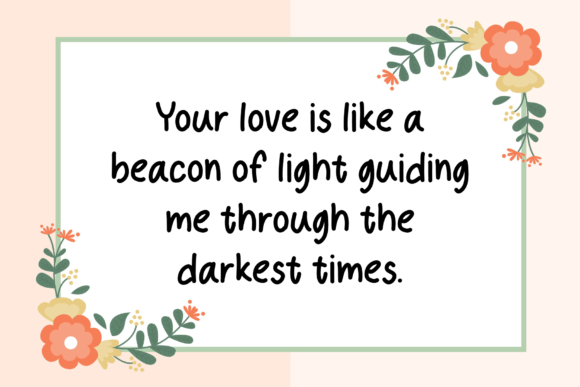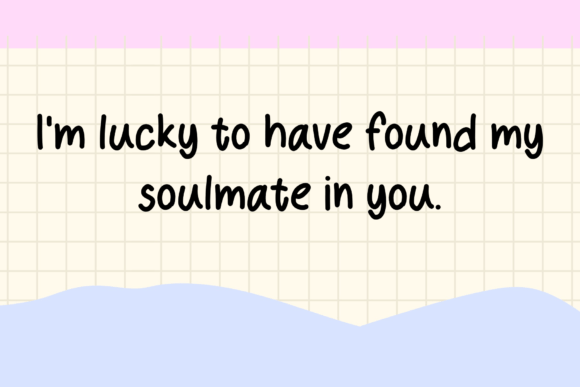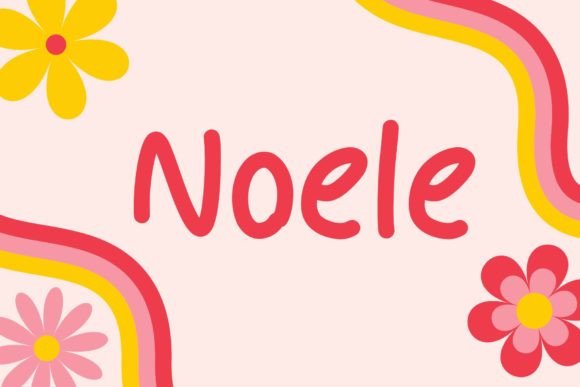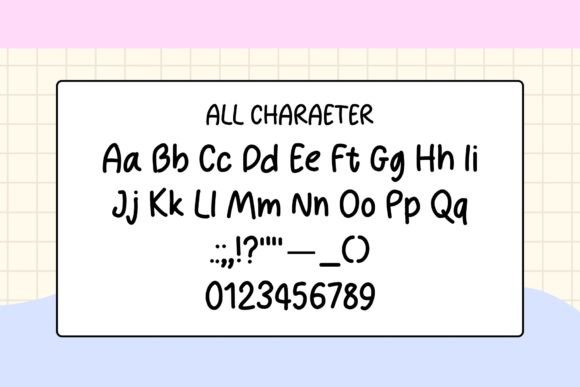
Introduction to Noele Font
As you sit at your desk, surrounded by twinkling lights and the soft glow of your computer screen, the excitement of the holiday season is in the air. You’re brainstorming ideas for your next design project, and the perfect font is eluding you. That’s where Noele Font comes in – a high-quality, festive typeface that’s sure to bring a touch of magic to your creative project.
Noele Font is more than just a font – it’s a design resource that embodies the spirit of the holiday season. With its delicate curves and whimsical details, this font is perfect for spreading joy and warmth in your designs. Whether you’re creating holiday cards, gift tags, or social media graphics, Noele Font is a valuable addition to your design toolkit.
Key Features of Noele Font
- High-quality, elegant design ideal for creative projects requiring a sophisticated touch.
- Includes 5 unique font styles, each with its own distinct personality and flair.
- Perfect for designers, artists, and writers seeking a unique and captivating font to elevate their creative project.
Honest Review: Noele Font
Noele Font is a lovely addition to any designer’s toolkit. I recently had the chance to test it out on a creative project, and I’m impressed with the results.
- High-quality typography**: The Noele Font features crisp, clean lines and a beautiful font style that’s perfect for any project.
Overall, I’m really pleased with the Noele Font. It’s a solid choice for any creative project, and the free download makes it an attractive option for designers.
- Limited font styles**: While the Noele Font is a great addition to any designer’s toolkit, it’s worth noting that it only comes in a few different font styles.
While the Noele Font isn’t perfect, it’s a great design resource that’s definitely worth checking out. With its high-quality typography and free download, it’s an excellent choice for any designer looking to add some flair to their next project.
Noele Font is a high-quality design resource ideal for creative projects. This free download offers a unique and stylish touch to your designs. With a transparent background, it’s perfect for use in various digital platforms.
Getting the Most Out of Noele Font
To get the most out of Noele Font, experiment with different font sizes, colors, and combinations to achieve a unique look. You can also use it in conjunction with other design elements to create a cohesive design.
Noele Font is perfect for creating invitations, social media graphics, and branding materials. Its high-quality design makes it suitable for various creative projects, from wedding invitations to business cards.